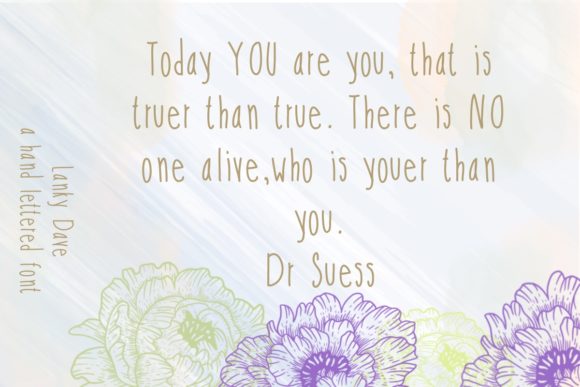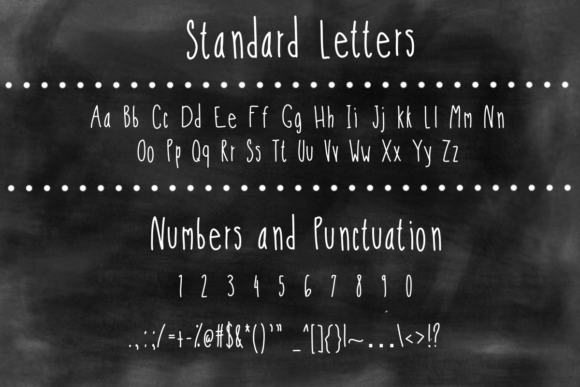
HomeScript FontsLanky Dave Font Script Fonts Lanky Dave Font FacebookXPinterestWhatsApp Lanky Dave Font Poster 2 Lanky Dave Font Poster 3 About Lanky Dave Font Lanky Dave is a tall and skinny script with a casual style. DOWNLOAD ON CREATIVE FABRICAThis font is sold and delivered by Creative Fabrica. Font Canyon may earn a commission if you buy through this link. People also explored Simple Fits Font Melissa Adalyn Font Room Tour Font Aluna French Font Right Female Font Whiskey Font Moshi Moshi Font Chilly Font Simpel Stacked Font 298 0 TagsLanky Dave Font Previous articleFat Boi FontNext articleChunky Money Font LEAVE A REPLY Cancel reply Comment: Please enter your comment! Name:* Please enter your name here Email:* You have entered an incorrect email address! Please enter your email address here Website: Save my name, email, and website in this browser for the next time I comment. Personal Use Free Archeology Personal Use Free Read more about this font Anggiana Personal Use Free Read more about this font Nulshock Bold Personal Use Free Read more about this font The Pottery Personal Use Free Read more about this font BLOG To increase your work productivity, choose the most readable fonts. In today's fast-paced work environment, where digital communication and information consumption are integral to our daily routines, the choice of fonts can significantly impact... Using Fonts in Digital Marketing: Tips to Strengthen Your Brand Identity How to Cut Any Font on Cricut: Convert a Font to SVG (Free) Free Fonts Risk: Why Free Fonts Can Be Dangerous for Designers